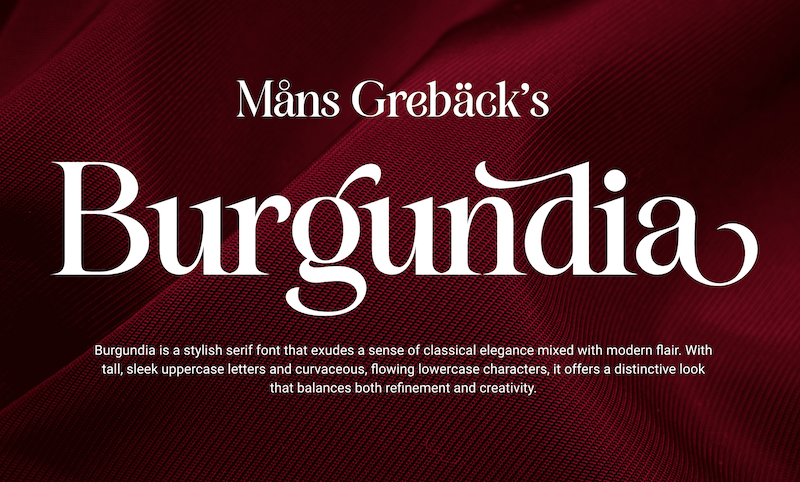
Preview and download Burgundia Font. Created by Måns Grebäck in Basic Serif styles with Free for personal use license.
NOTE: This font is for PERSONAL USE ONLY! To purchase a commercial license, visit: https://www.mansgreback.com/product/burgundia Burgundia is a stylish serif font that exudes a sense of classical elegance mixed with modern flair. With tall, sleek uppercase letters and curvaceous, flowing lowercase characters, it offers a distinctive look that balances both refinement and creativity. For questions, please visit https://mansgreback.com/faq |